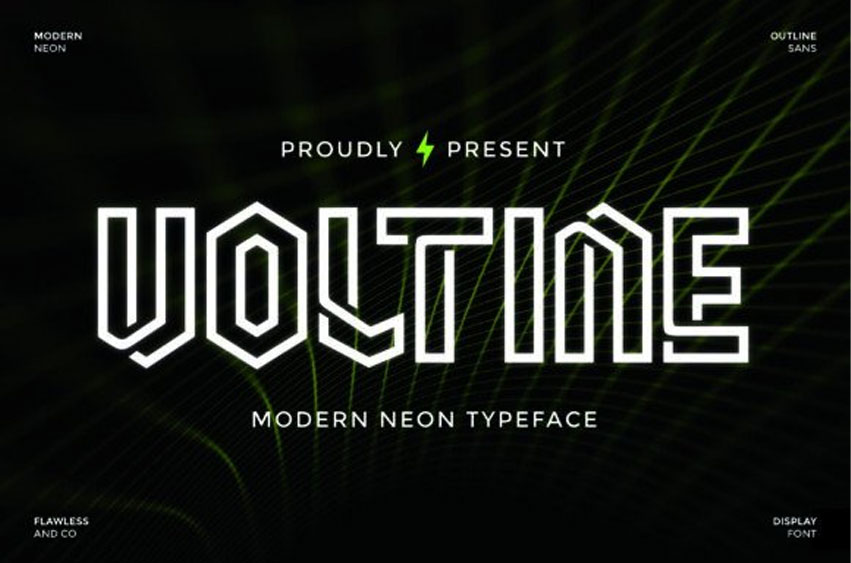
Voltine Font is a modern neon font that blends futuristic energy with geometric precision. Designed with sleek outlines and sharp angles, Voltine captures the essence of electric light — bold, bright, and dynamic.
Perfect for creating glowing visuals, Voltine brings a sense of movement and innovation to any project.